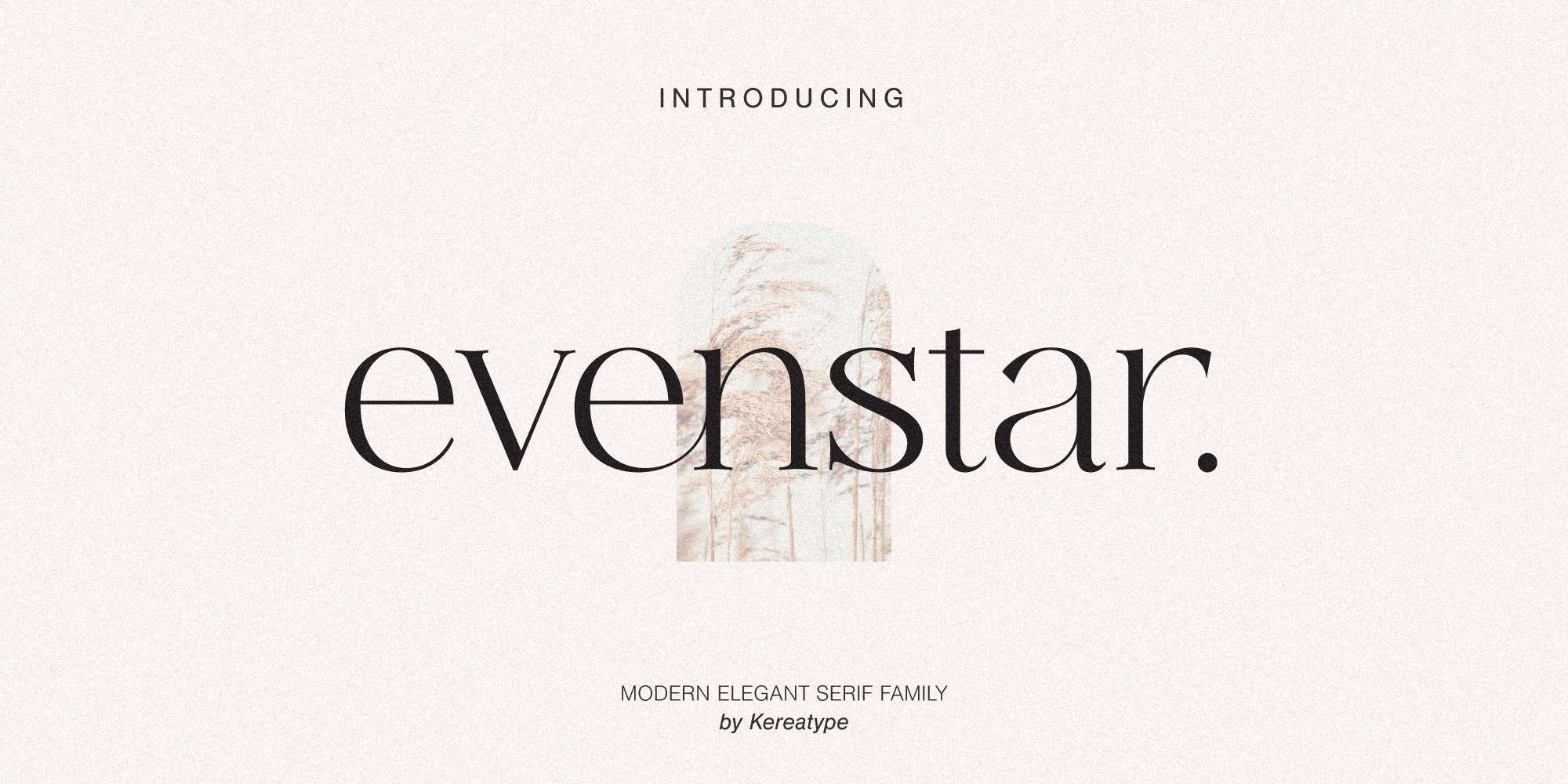
Evenstar Font is perfect for celestial branding projects, mystical evening events, romantic twilight weddings, ethereal beauty products, enchanted storytelling materials, dreamy nighttime photography watermarks, magical lunar ceremonies, stargazing experience marketing, and serene evening meditation centers.
What makes Evenstar Font so exciting is its celestial enchantment that perfectly captures the magical beauty and peaceful serenity of evening stars and twilight dreams. This mesmerizing typeface features graceful letterforms with star-inspired curves and ethereal proportions that evoke the gentle glow of Venus in the evening sky and the mystical tranquility of starlit nights. The font's distinctive character incorporates the wonder of celestial beauty while maintaining exceptional readability, making it ideal for brands seeking to communicate magic, serenity, and otherworldly elegance.
Evenstar Font includes a luminous family with Regular, Bold, Light, and Glow variations, each maintaining the signature celestial aesthetic while offering different levels of starlit impact for various mystical and romantic applications. Additional stellar ornaments and celestial decorative elements provide extra creative possibilities for designers working on magical and evening-themed projects.
Whether you're developing enchanting brand identities, creating romantic evening materials, or designing mystical celebration campaigns, Evenstar Font Free Download delivers the celestial magic and ethereal authenticity that starlit projects require. Its versatile nature makes it suitable for both digital mystical content and print evening applications while maintaining consistent celestial appeal across all magical platforms. This exceptional typeface brings genuine starlight wonder to your designs, ensuring your message communicates enchantment and tranquility that resonates with audiences who appreciate celestial beauty and value design that celebrates the magnificent mystery and peaceful magic of evening stars and twilight serenity.